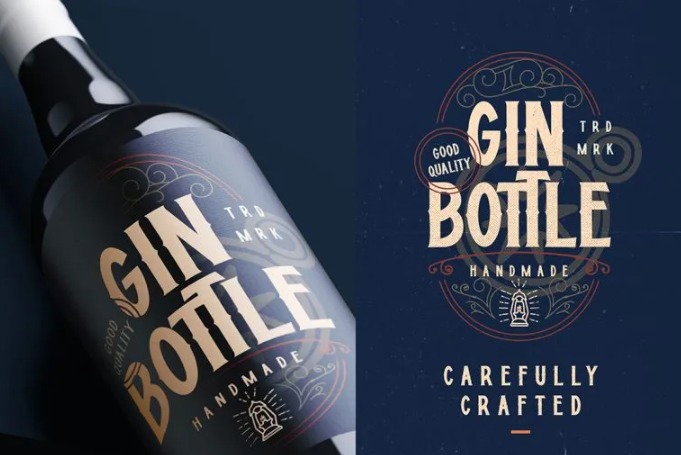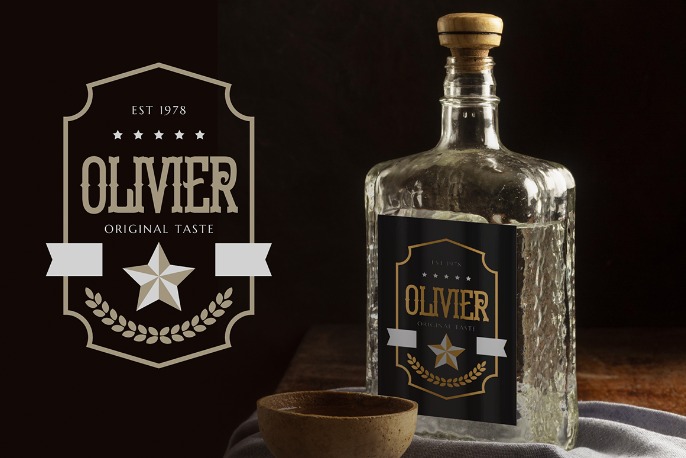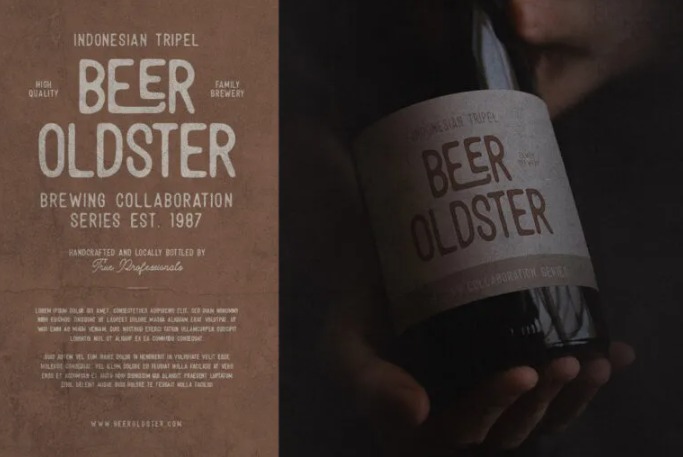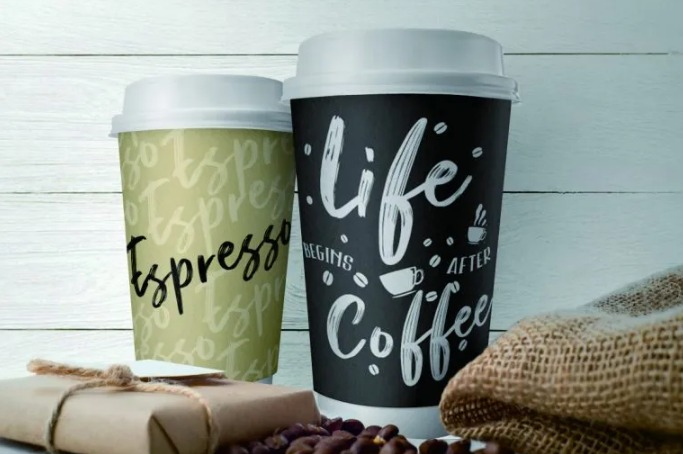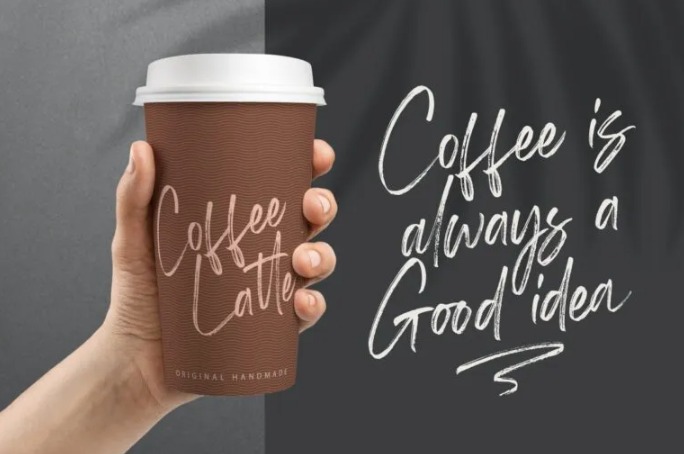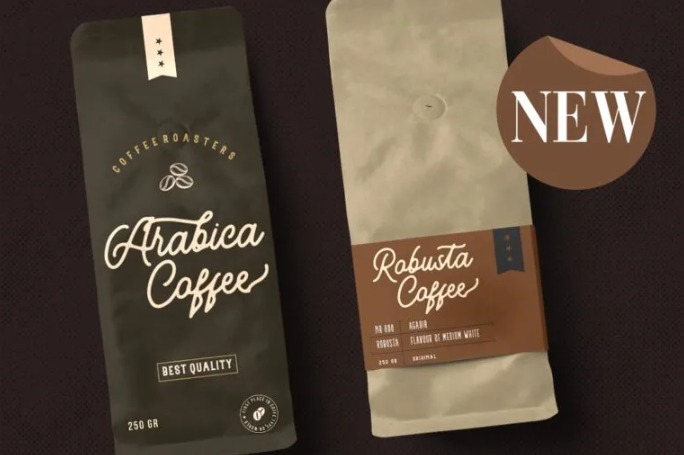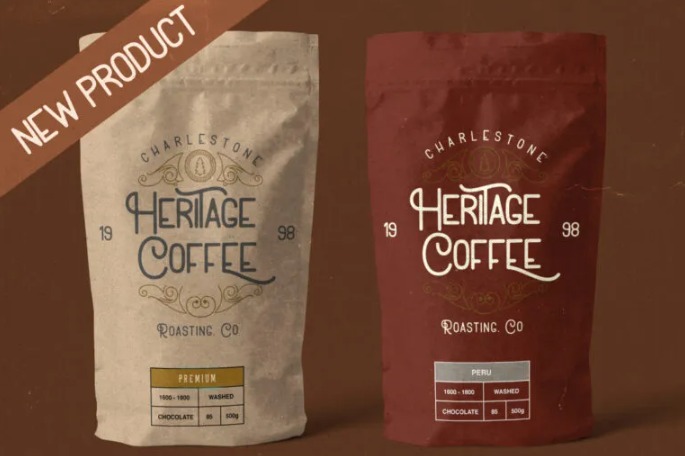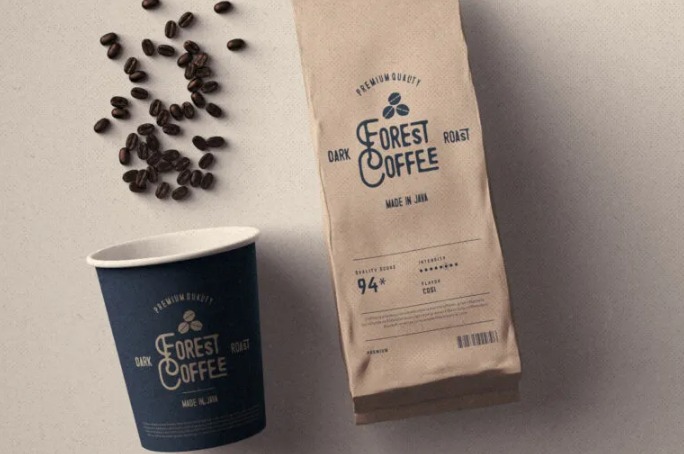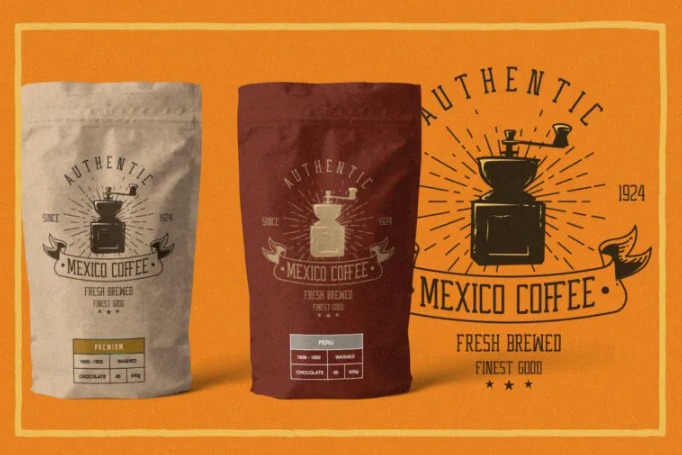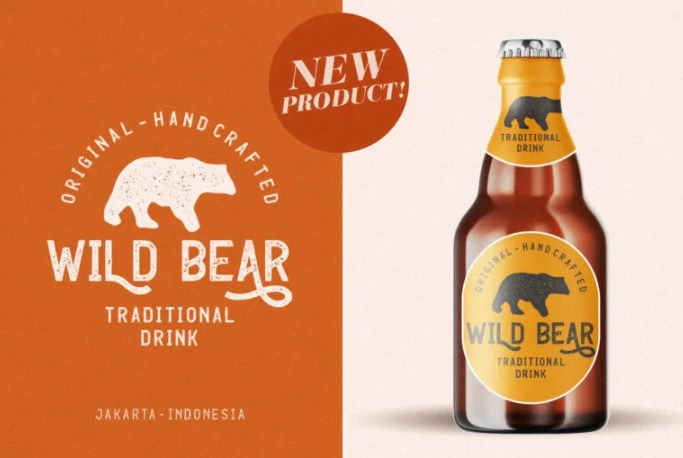
7. Bar Font: 12+ Impeccable Fonts for Hypnotic Bar Designs
To complement your bar’s vibe, a proper font collection will add so much to your niche. Some of you might stir up some traditional feel in your bar or even some coffee touch, donโ€™t worry about it because we got you covered. Check out our bar font collections and a little bit of something more in the following list!
There are generally three styles of bar fonts: vintage, modern, and luxurious. Youโ€™ll find these typefaces representing each font. So, letโ€™s get to it!
1. Mattador
Mattador Retro Typeface Beer Packaging Design by Mattador Font
Mattador is straight-up a vintage or retro typeface. This display font knows its position and proudly offers uppercase-only letters and the lowercase serves a different design of the font. Matador is surely your typical bar font!
2. Jabottabeck
Jabottabeck Vintage Monoline Typeface Coffee Packaging Design by Jabottabeck Font
Another vintage selection for you is Jabottabeck, and this one has a more flowy character. It is a monoline font, so less blocky with creative swashes. Jabottabeck can also be your option for a coffee brand font, a totally versatile font.
3. Lamorry
Lamorry Monoline Font Traditional Drink Packaging Design by Lamorry Font
Similar to Jabottabeck, Lamorry is a versatile font. The fontโ€™s swashes imitate your bartenderโ€™s flair, a warm feel for your coffee brand, and vintage enough for your traditional drink. Thus, it is your choice to put it in your preferences.
4. Western Wildler
Western Wildler Vintage Font Coffee Packaging Design by Western Wildler
If youโ€™re looking for a vintage Wild West font, then Western Wildler is the font for you. The vintage slab typeface is your typical American bar font or coffee brand. Serve up your six-shooter and a giddy-up juice with a style.
5. Enternal
Enternal Vintage Stamp Font Traditional Drink Packaging Design by Enternal Font
This vintage stamp typeface has a sense of authority embedded in it. Introducing, the Enternal font, muddled some fresh patterns with a mix of bold and firm characteristics hence, fits perfectly if you aim for an assertive aesthetic.
6. Rontrelan
Rontrelan Monoline Font Coffee Packaging Design by Rontrelan Font
Rontrelan presents an adventurous typeface. The non-firm edge and the style in this monoline font create a warm and sort of wooded cabin-type bar vibe. Rontrelan is filled with ligatures and alternates to channel your creative design.
7. Zawturee
Zawturee Monoline Typeface Beer Packaging Design by Zawturee Font
In the context of bar font, Zawturee is exceptionally fitting. This vintage monoline font is perfect for your brewski design. The natural and flowy alternates create a relaxed and lowkey feel.
8. Antipathy
Antipathy Retro Script Font Coffee Packaging Design by Antipathy Font
If you want a neat design, try Antipathy! The rough texture mixed with vintage script style can be your โ€œchaserโ€. It is an elegant font to complete various kinds of design.
9. Shutterland
Shutterland Handbrush Bar Font Coffe Packaging Design by Shutterland Font
Moving on from the rugged typefaces, Shutterland presents a hand-brush script typeface for your coffee designs. The natural handwritten look makes your design more warm personal and appealing, just like a cup of a warm coffee.ย
10. Ganttlets
Ganttlets Brush Typeface Coffe Packaging Design by Ganttlets Font
This is a modern script font with a profound brush style. These brush-style fonts are perfect to complement your blocky font selections, but Ganttlets is bold enough to stand out by itself. You can use this font on a tamer, non-alcoholic section of your bar.
11. Molland
Molland Retro Display Font Fresh Drink Packaging Design by Molland Font
One fresh font for you is Molland. This retro font is unique, just like the drink, itโ€™s topped off with a literal garnish on it. Moreover, the style depicts that you have one too many.ย ย
12. Whisholder
Whisholder Vintage Typeface Traditional Drink Packaging by Whisholder Font
A luxurious one for your collection, namely Whisholder. Arguably, Whisolder is the font bar, and the vintage typeface is perfect for your brewski brand. When people see this font, theyโ€™ll be like โ€œWe gotta try this oneโ€. So, put it everywhere, theyโ€™ll try everything.
13. Hypebeast
Hypebeast Vintage Font Beer Packaging Design by Hypebeast Font
We have to end this list with Hypebeast. The font is totally uppercase pack with vintage typeface. The style is perfect for your bar font, coffee brand, or traditional drink you might serve. With its layer, you can use the font in different styles.
Which Bar Font Peaked Your Interest?
Weโ€™ve compiled our top bar fonts for any bar style, you can click the link of each of them and find out how theyโ€™ll interact with multiple designs. A font is part of your design choice that contributes to the overall visual identity and atmosphere of the bar. Try finding a bold and easily readable font and put a touch of your identity in it.